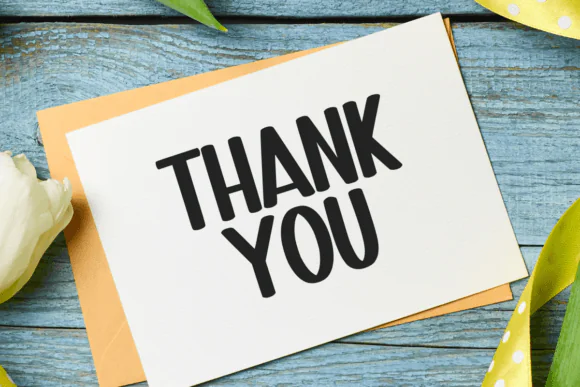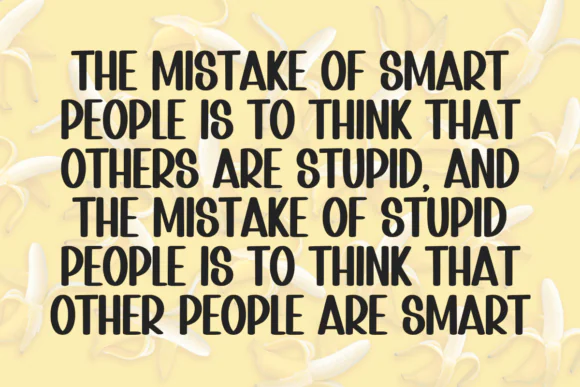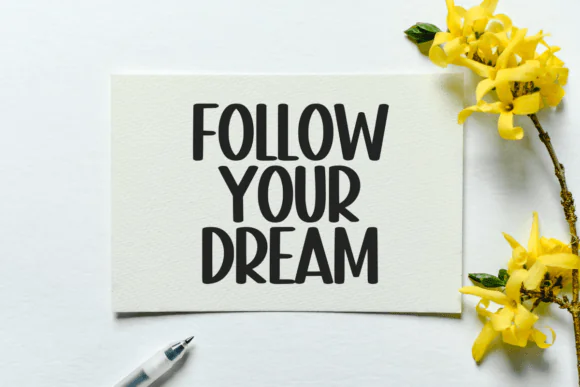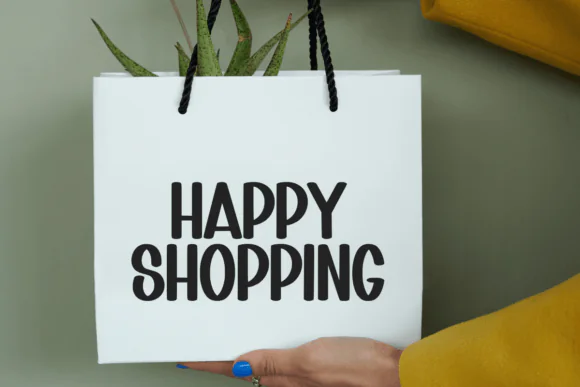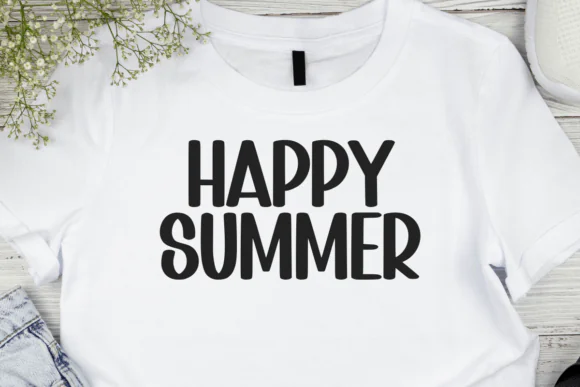
Banana Cupcake Playful Sans Serif Font – Rounded Cheerful Typeface for Branding, Packaging, Posters, Logos, Social Media Graphics, Kids Designs & Creative Display Typography
Add fun, warmth, and cheerful personality to your designs with Banana Cupcake Font, a lively sans serif typeface designed with rounded edges and playful letterforms. Its soft, friendly appearance gives your typography a joyful and creative feel, making it perfect for projects that need a bright, approachable, and whimsical style.
Banana Cupcake Font works beautifully for branding, packaging, posters, logos, product labels, social media graphics, greeting cards, stickers, invitations, kids designs, classroom materials, printable wall art, merchandise, party decorations, and digital products. Its rounded sans serif style keeps the text easy to read while adding a fun decorative touch that helps designs feel more memorable and expressive.
Branding, logos, packaging, posters, product labels, social media graphics, stickers, greeting cards, invitations, kids projects, classroom designs, party decorations, printable wall art, merchandise, digital downloads, web graphics, and cheerful creative projects.
Key Features
• Lively sans serif font style
• Rounded edges with playful letterforms
• Cheerful, whimsical, and versatile appearance
• Great for branding, packaging, and posters
• Easy to read while still feeling fun and creative